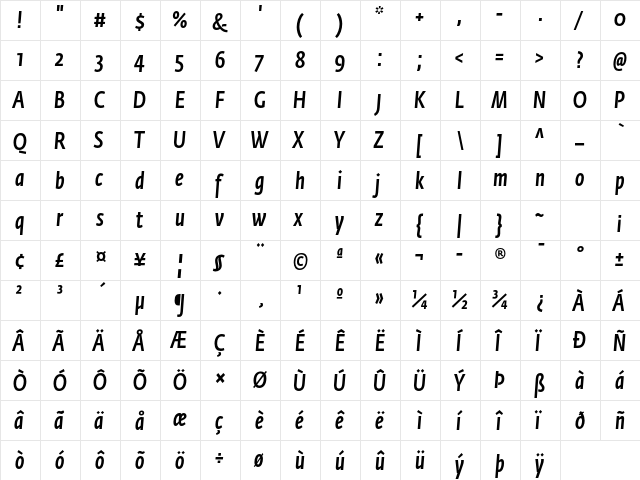
Fedra Sans Condensed Std Medium Italic Font Preview
| Foundry | Typotheque type foundry |
| Designer | Peter Bilak https://www.typotheque.com) |
Design Context for Fedra Sans Condensed Std Typeface
Fedra Sans Condensed Std offers clean, dependable letterforms without strong stylistic allegiance, making it a practical choice for designers who need flexibility. The slanted form adds forward momentum and visual energy. Its narrow stance lets it pack a punch even in space-constrained designs.
Pro Tip: Try Fedra Sans Condensed Std for annotation and caption copy alongside an upright companion — the contrast in angle creates a dynamic but ordered typographic system.